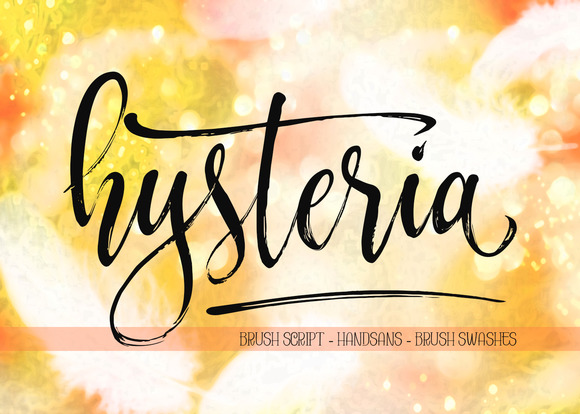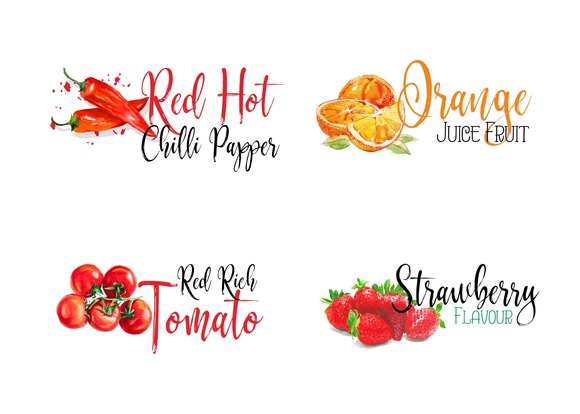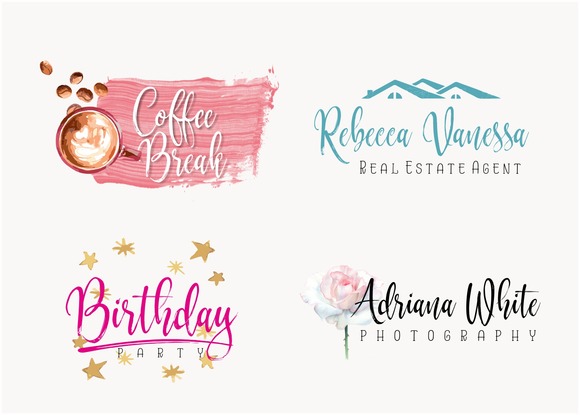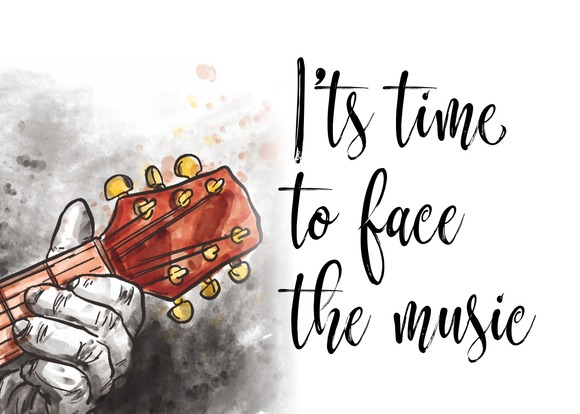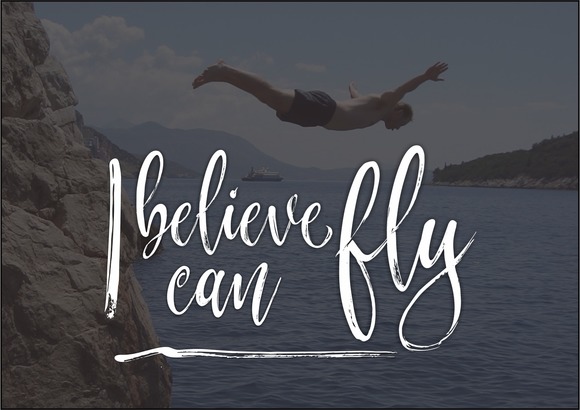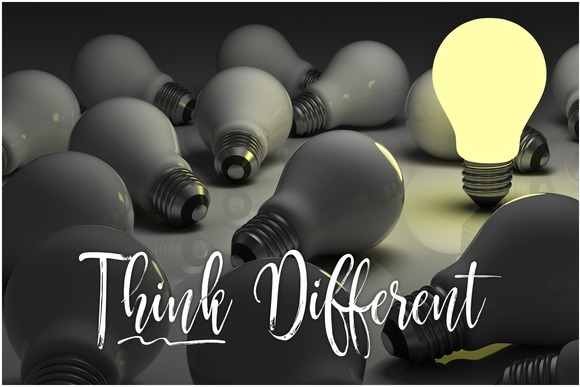
HomeScript FontsHysteria Font Script Fonts Hysteria Font FacebookXPinterestWhatsApp Hysteria Font Poster 2 Hysteria Font Poster 3 Hysteria Font Poster 4 Hysteria Font Poster 5 Hysteria Font Poster 6 Hysteria Font Poster 7 About Hysteria Font Hysteria Brush is a unique brush script. It gives an elegant feeling to any design! DOWNLOAD NOW People also explored Stupid Cow Central Font La Senorita Font Seashell Font Breakout Memory Font Medieval Characters Font Coffee Font Gendhist Font Roman Forum 267 0 TagsHysteria Font Previous articleKimberlay FontNext articleGhisella Font LEAVE A REPLY Cancel reply Comment: Please enter your comment! Name:* Please enter your name here Email:* You have entered an incorrect email address! Please enter your email address here Website: Save my name, email, and website in this browser for the next time I comment. Personal Use Free Masker Area Personal Use Free Read more about this font Sunshine Tropical Font Personal Use Free Read more about this font Carved Wood Personal Use Free Read more about this font Playground Clip Art Personal Use Free Read more about this font BLOG Free vs Paid Fonts: Why Investing in Premium Fonts Is Worth It Free vs Paid Fonts: Why Premium Fonts Are Worth It in 2025 The debate of free vs paid fonts continues in the design world. While... Top 10 Handwritten Fonts That Elevate Your Designs Free Fonts Risk: Why Free Fonts Can Be Dangerous for Designers Best Fonts for T-Shirt Design – Top 2025 Picks